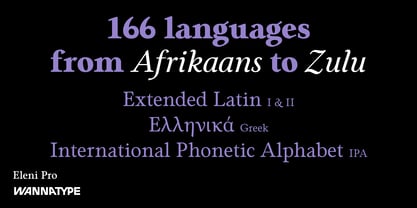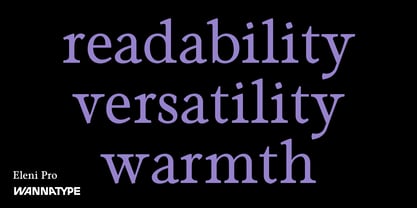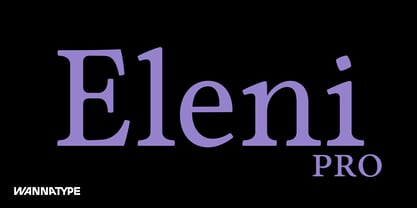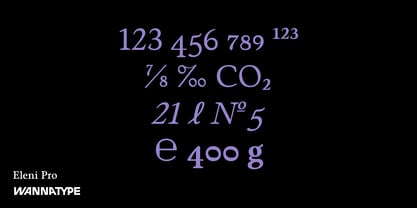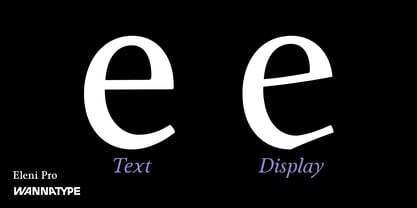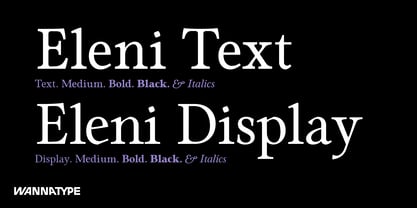
Eleni Pro
Die Schriftfamilie Eleni Pro wurde von Ekke Wolf entworfen und von Wannatype veröffentlicht. Eleni Pro enthält 16 Stile und Familienpaketoptionen. Mehr über diese Familie
Eleni Pro covers all needs of classic typesetting. With its soft design the typeface grants legible and unique looking copy texts, even in small sizes. It provides not just Text, but also Display styles with sharper outlins and narrow spacing. Eleni Pro comes with Extended Latin, Greek and the International Phonetic Alphabet. All fonts offer small caps and a huge variety of figure styles, including fractions and superscripts, tabular and proportional oldstyle figures as well as lining figures.
Designer: Ekke Wolf
Foundry: Wannatype
Eleni Pro
Wannatype, founded in 2021 by type designer and book designer Ekke Wolf, is a small independent type foundry in the city of Vienna, Austria. It offers a growing variety of different fonts, for example Franzi, Wien, Runde Wien, Liebelei and the monospaced ZAP type system. Wannatype also hosts typeface families drawn by other designers: Convey, a semi-serif typeface family drawn by Gabriele Lenz, and Wienerlinien, a huge pixel typeface family by Helmut R. Nowak.